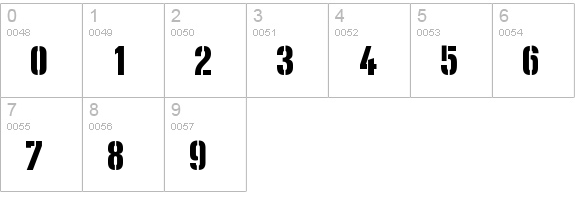
DieselStencil Regular Font Details
DieselStencil Regular is the standard, neutral variant in the DieselStencil typeface family \xE2\x80\x94 well suited to general body text, paragraphs, and standard typographic work.
DieselStencil Regular font is a bold and impactful typeface that exudes strength and modernity. Its sturdy letterforms and clean lines make it perfect for headlines, posters, and branding projects. With a contemporary industrial feel, this font is versatile and can be used in various design applications. Best of all, DieselStencil Regular font is available for free download at FontsMarket.com. This means that you can easily access and use this striking typeface in your projects without any cost. Whether you're a professional designer or a hobbyist looking to add a touch of edginess to your creations, DieselStencil Regular font is a fantastic choice that won't break the bank. Download it today and elevate your designs with its bold and distinctive aesthetic.